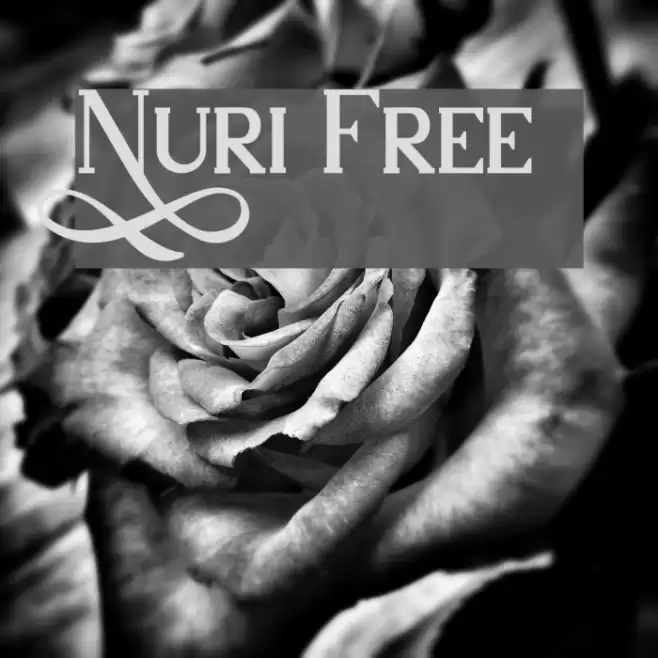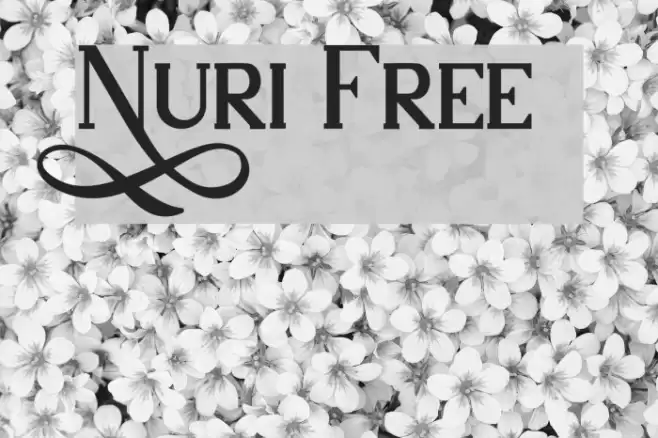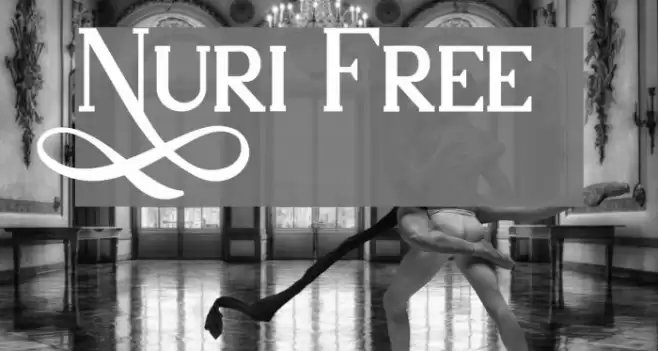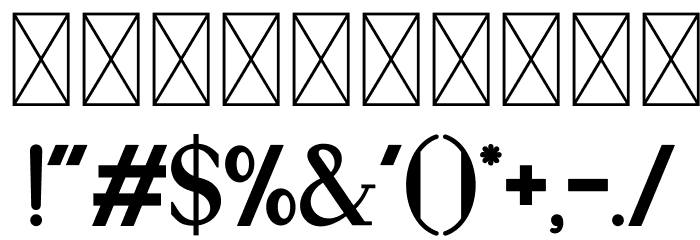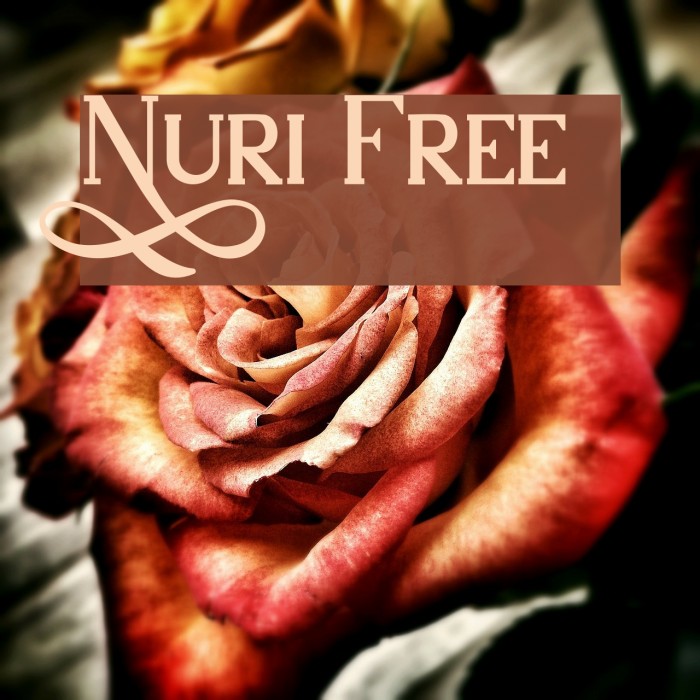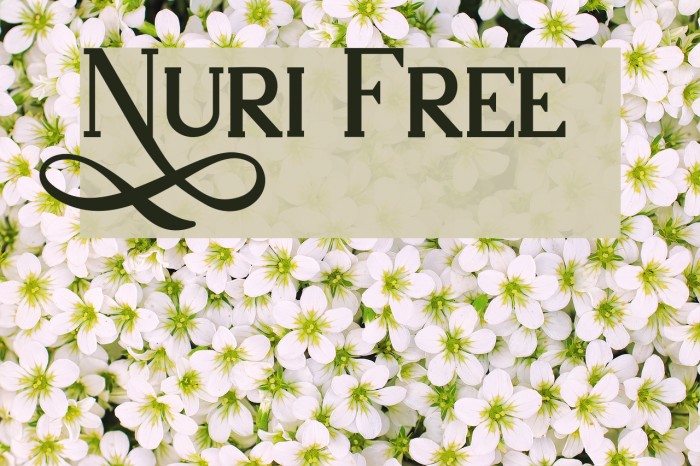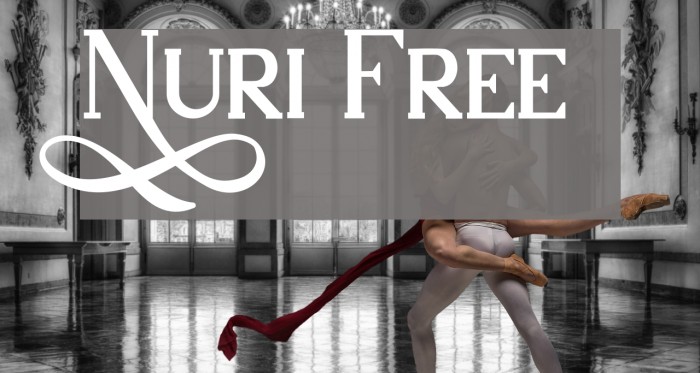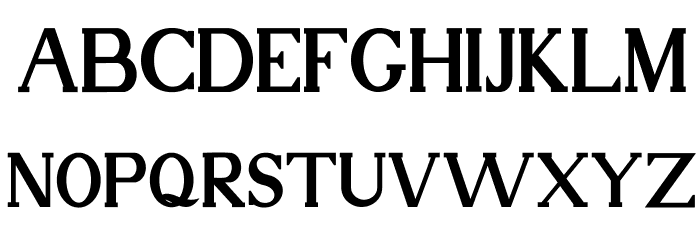
Nuri Free Font
Nuri Free Description
This font features a bold and elegant serif style with distinct, sharp edges and a classic appearance. The uppercase letters are characterized by their strong vertical lines and subtle curves, giving them a sophisticated and timeless look. The lowercase letters maintain a consistent style, complementing the uppercase with their refined and balanced design. The numerals are clear and legible, making them suitable for various applications. Special characters are designed with the same attention to detail, ensuring a cohesive appearance across all glyphs. This font exudes a sense of tradition and formality, making it ideal for projects that require a touch of elegance and class.
A bold, elegant serif font with a classic and sophisticated style from Uncategorized fonts.
- Proposed Projects: Ideal for formal invitations, book covers, branding, and editorial design.
- Overall Style: Classic
- Use Case: Headlines, Logos, Editorial design